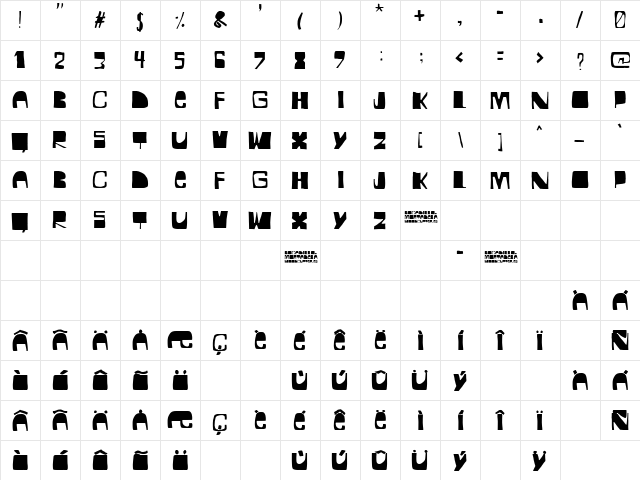
BOCADILLO DE MORTADELA Regular
Design Context for BOCADILLO DE MORTADELA Typeface
BOCADILLO DE MORTADELA is a composed and adaptable typeface that performs quietly and consistently across a wide range of design contexts.